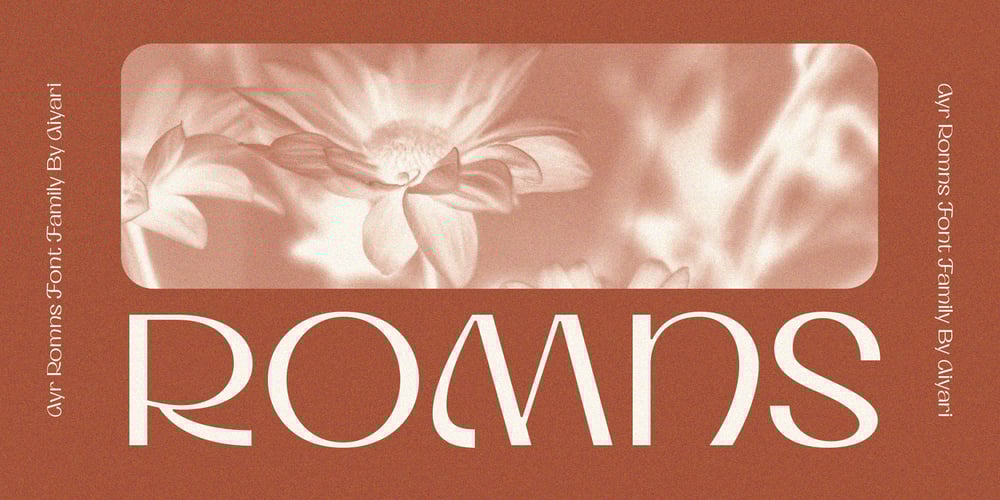
Ayr Romns Font Family was designed by Ricky Rinaldi and published by Aiyari. Ayr Romns contains 3 styles and family package options. Introducing Romns a display typeface inspired by the elegance of Roman letterforms, seamlessly blending influences from the Art Deco and Art Nouveau movements with a touch of modernism and humanist sans-serif aesthetics. Its distinctive shapes and refined details evoke a sense of nostalgia while maintaining a contemporary appeal.Ideal for logotypes, posters, packaging, book covers, and creative projects that seek a unique yet timeless character, Romns brings a sophisticated yet aesthetic touch to any design.